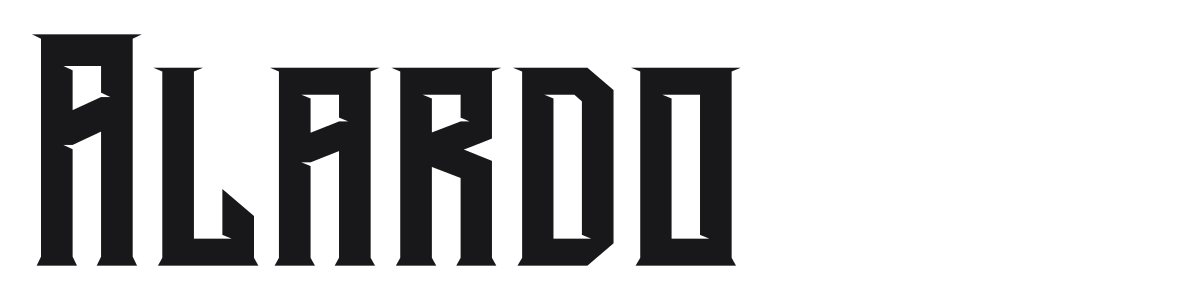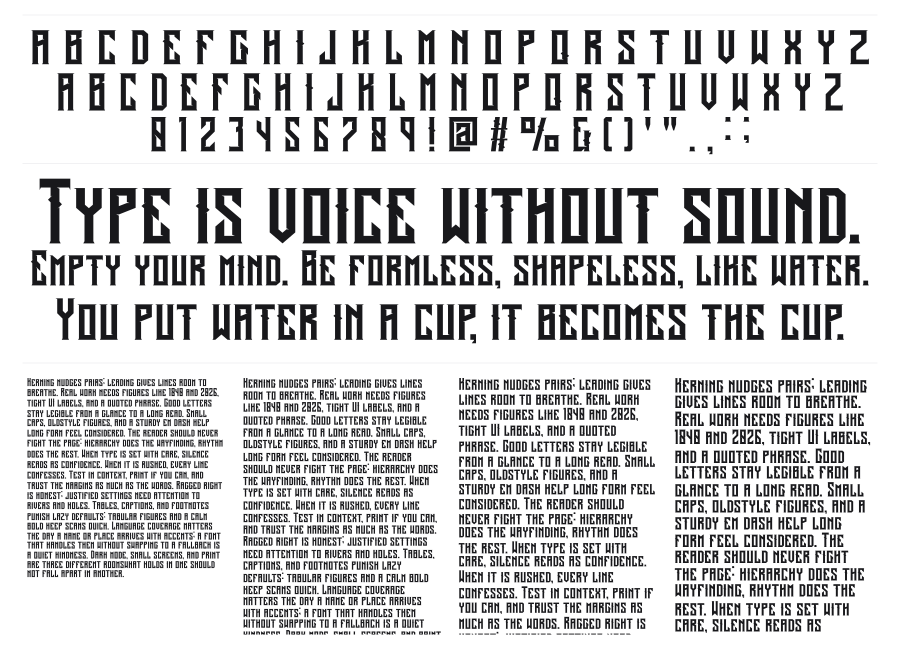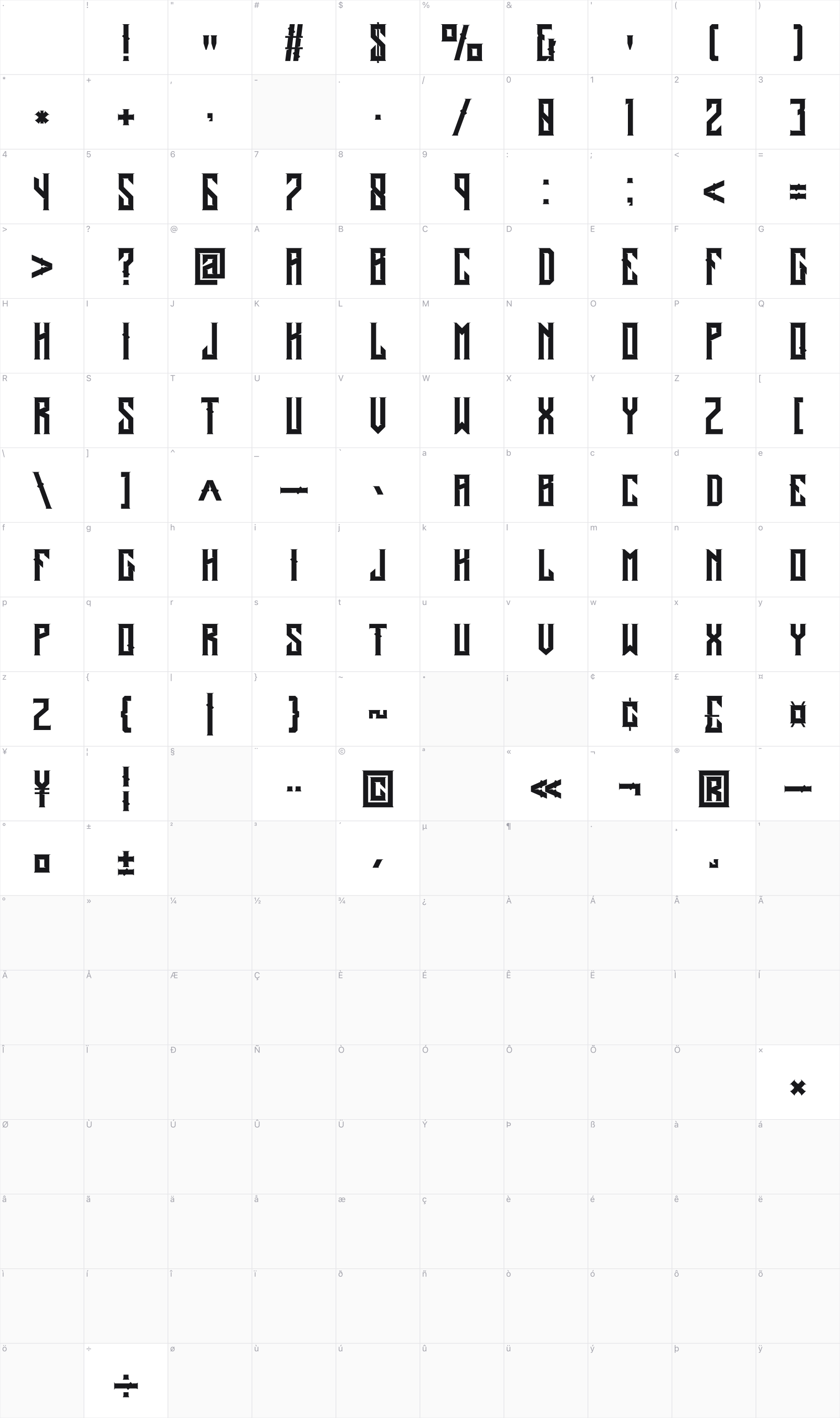
Alardo
Alardo is a condensed gothic display face built for impact, with angular wedge serifs, sharp notched terminals, and a dense bold weight that commands attention at large sizes. Short ascenders and descenders keep the caps-driven silhouette compact and forceful. It draws from blackletter and sports lettering traditions to land somewhere that feels both historic and street-ready.